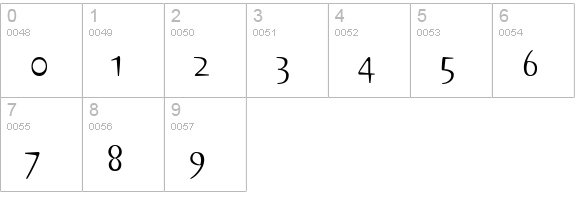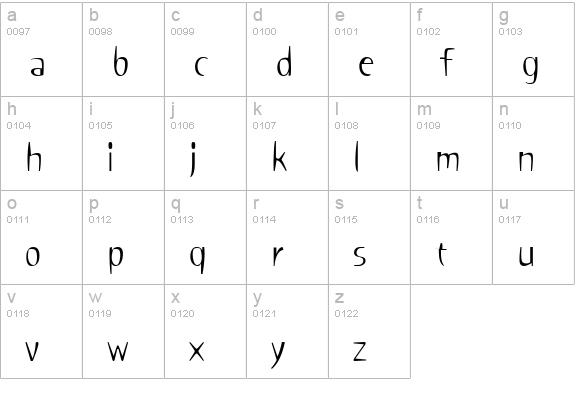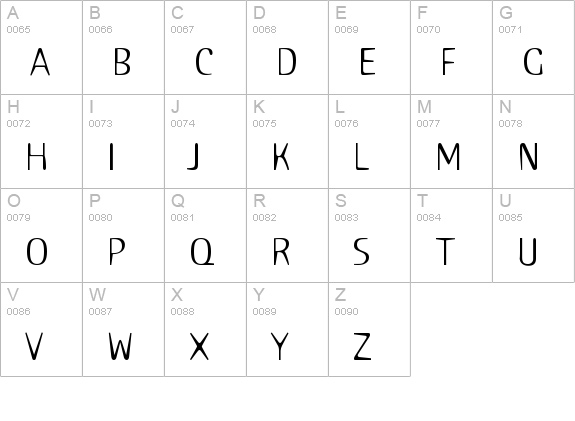
Sniff Font Details
Introducing Sniff font, a unique and versatile typeface that is sure to captivate both designers and typography enthusiasts alike. With its playful and charismatic charm, Sniff font adds a touch of whimsy to any project, making it perfect for a wide range of creative endeavors. This free font offers a delightful balance between modernity and nostalgia, seamlessly blending contemporary design elements with a hint of vintage flair. Its clean lines and smooth curves give Sniff font a polished and sophisticated look, while subtle irregularities inject a sense of character and warmth. Sniff font's versatility truly shines through as it effortlessly adapts to various design themes and contexts. Whether you're designing a logo, crafting eye-catching headlines, or creating stunning invitations, Sniff font's wide range of letterforms and ligatures ensures that every project will stand out from the crowd. But that's not all – Sniff font is not only visually appealing, but it is also free! That's right, this remarkable font is freely available to download at FontsMarket.com. Now, designers can unleash their creativity without any financial constraints, making Sniff font the go-to choice for both personal and commercial projects. So why wait? Discover the beauty and versatility of Sniff font today. With its captivating charm and the added bonus of being freely accessible, this font is a must-have in every designer's toolkit. Download Sniff font now and let your creativity soar to new heights!